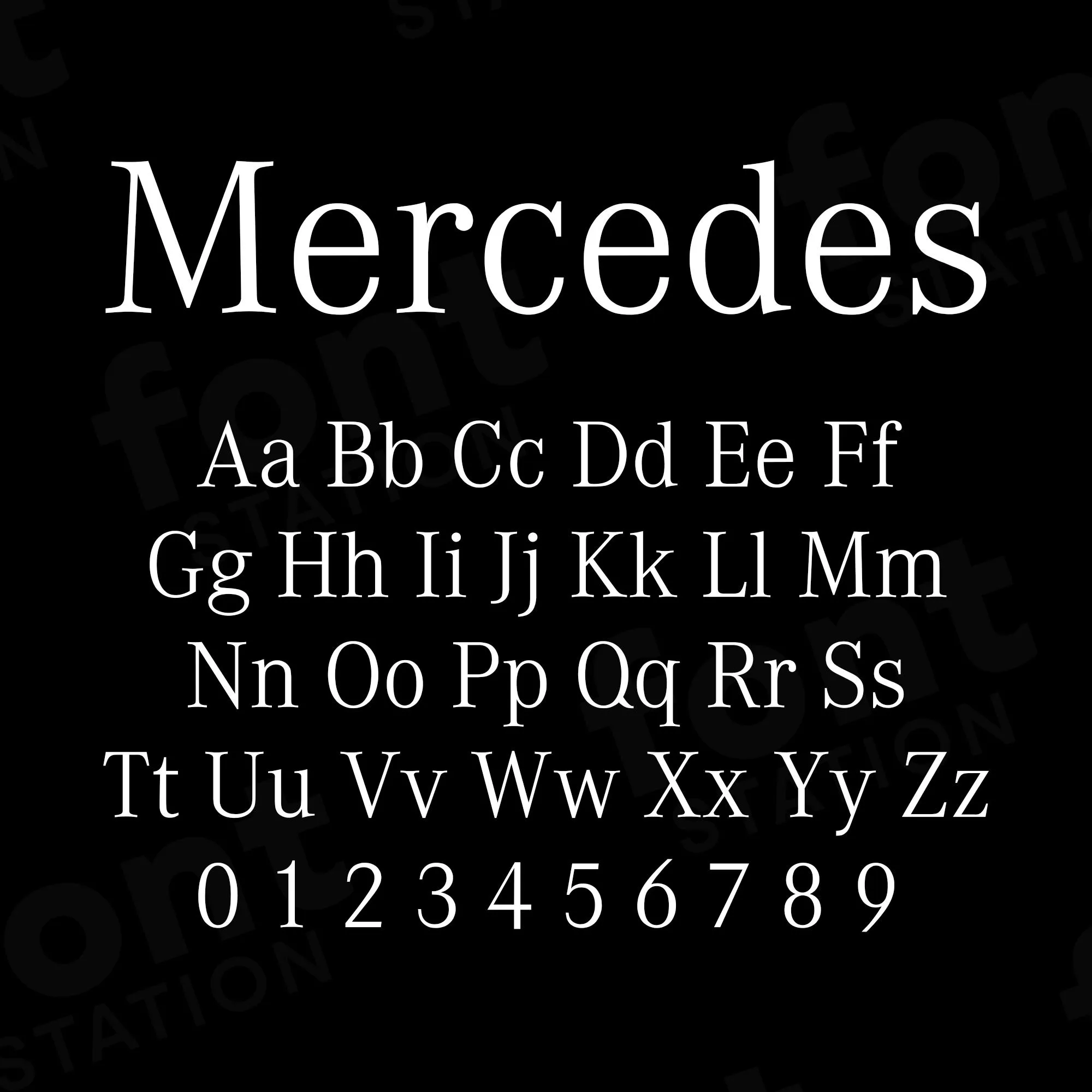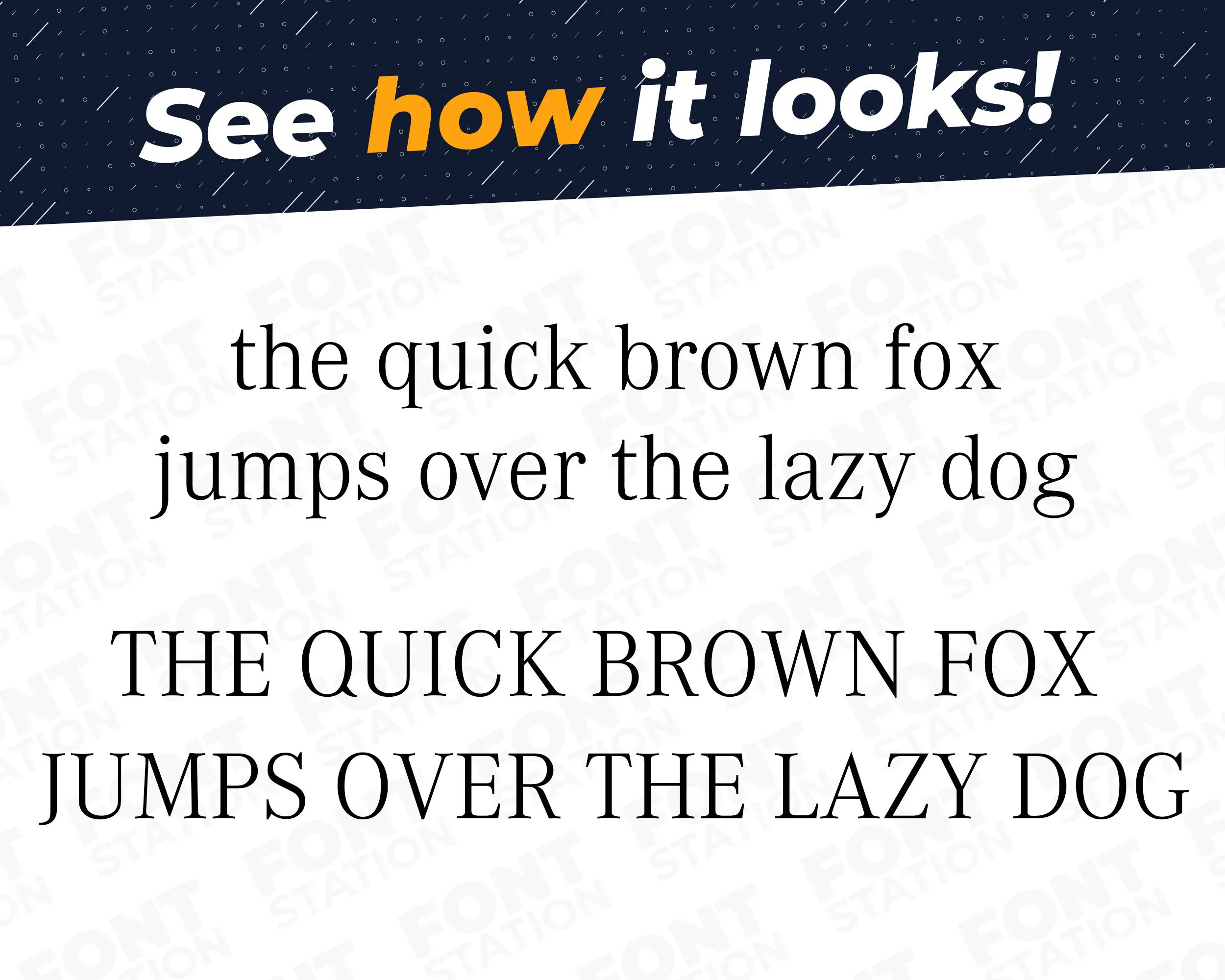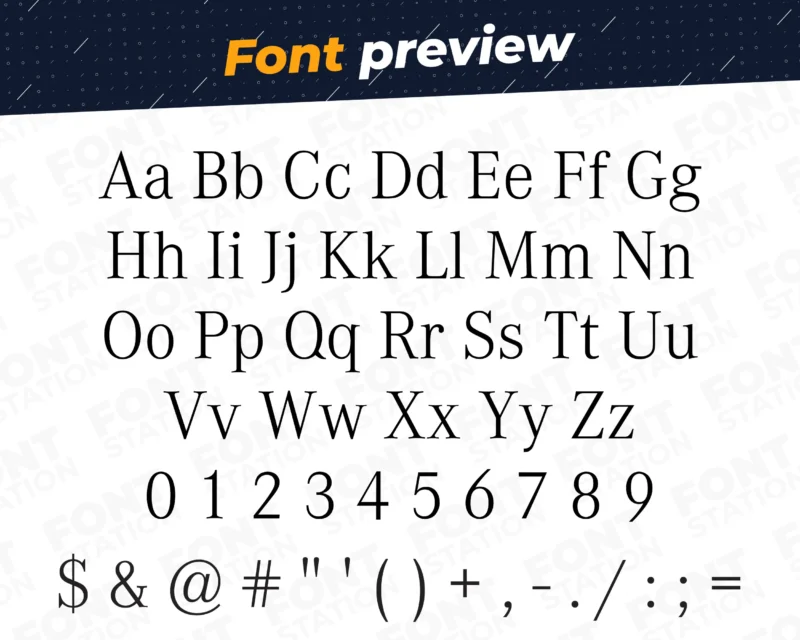
Our Benzo typeface, inspired from Mercedes font
Grab your computer, tablet or other device and start creating right now with our Mercedes font letters! Our Benzo typography is inspired from Mercedes font, making it ideal for various digital creations (logo, word…), sublimation, cake toppers, stickers, event decorations, and more.
Mercedes Font